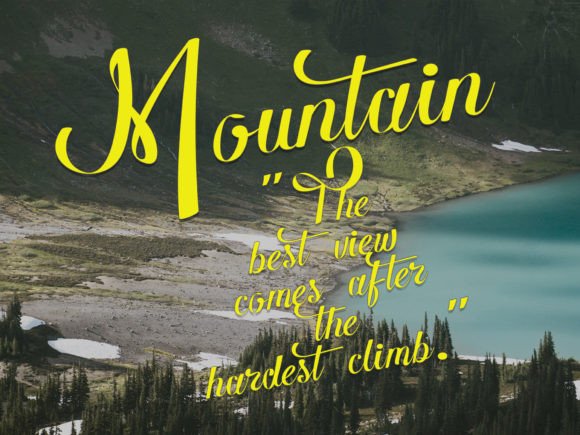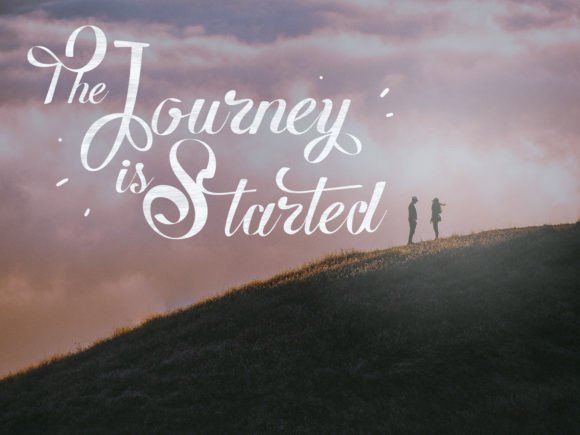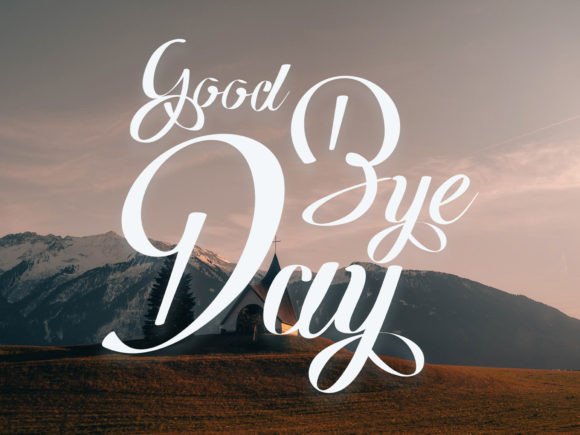
About Woster Adios Font
Woster Adios font is an elegant and modern script that beautifully combines style with sophistication. Its unique and lovely feel makes it a standout choice for designers who want to add a graceful touch to their creative projects.
Elegant and Modern Script Style
The charm of Woster Adios font comes from its smooth flowing strokes and refined curves. This font creates a balanced, contemporary look while maintaining an air of elegance. Its design makes it easy to use across a variety of mediums without losing its distinctive character.
Versatile Use Across Projects
Thanks to its stylish and modern appeal, Woster Adios font is ideal for a wide range of creative uses, such as:
Logo and branding design
Magazine layouts and editorial projects
Social media graphics and posts
Brochures, flyers, and marketing materials
Its versatility ensures that the font enhances your projects with sophistication and flair.
Make a Lasting Impression
Using Woster Adiosfont will give your designs a professional and polished look. The beautiful script style adds personality and charm, helping your work stand out in competitive markets. It’s especially useful when you want to convey elegance and modernity simultaneously.
Summary
In conclusion, Woster Adiosfont is an elegant and modern script perfect for logos, magazines, social media, brochures, and many more creative projects. Its refined and unique style makes it a valuable addition to any designer’s toolkit.